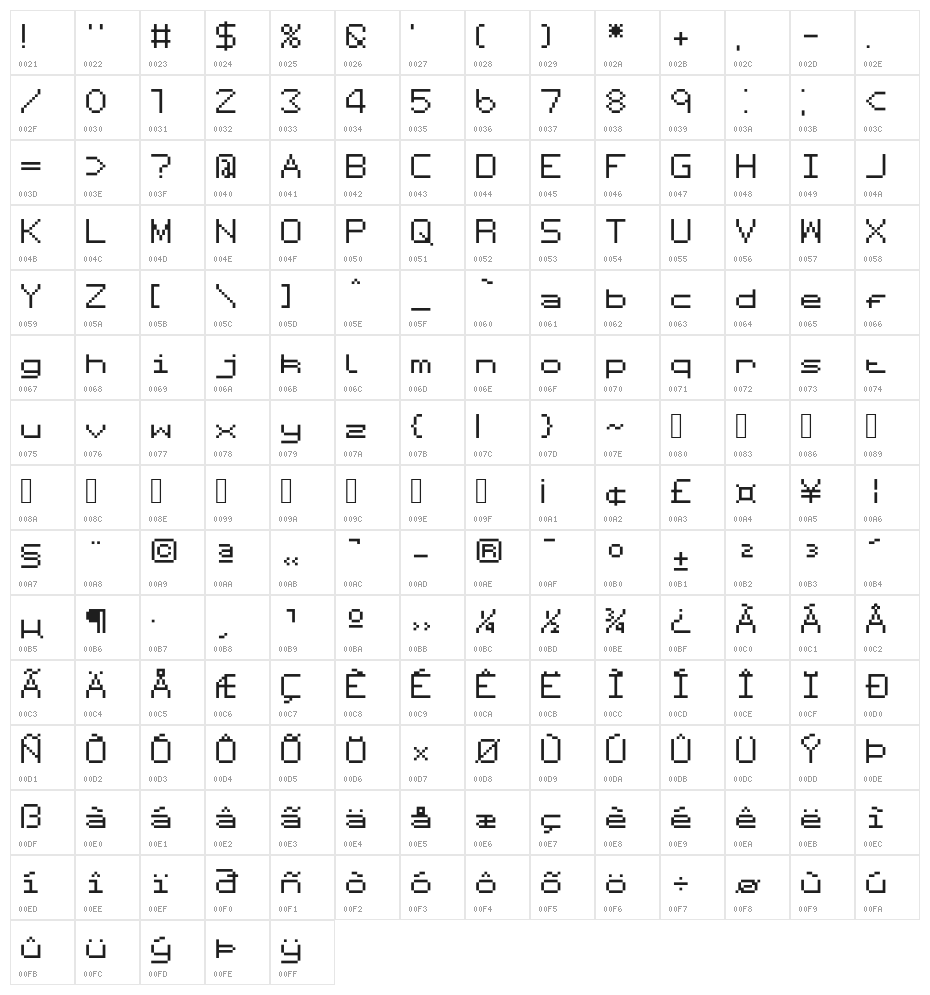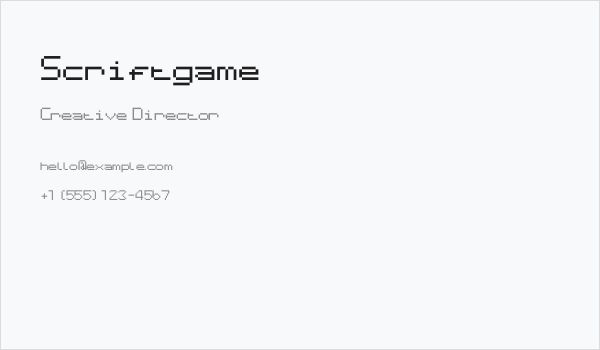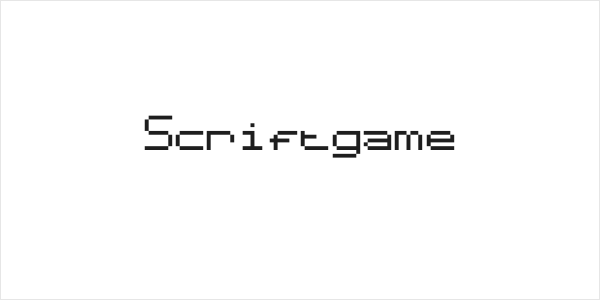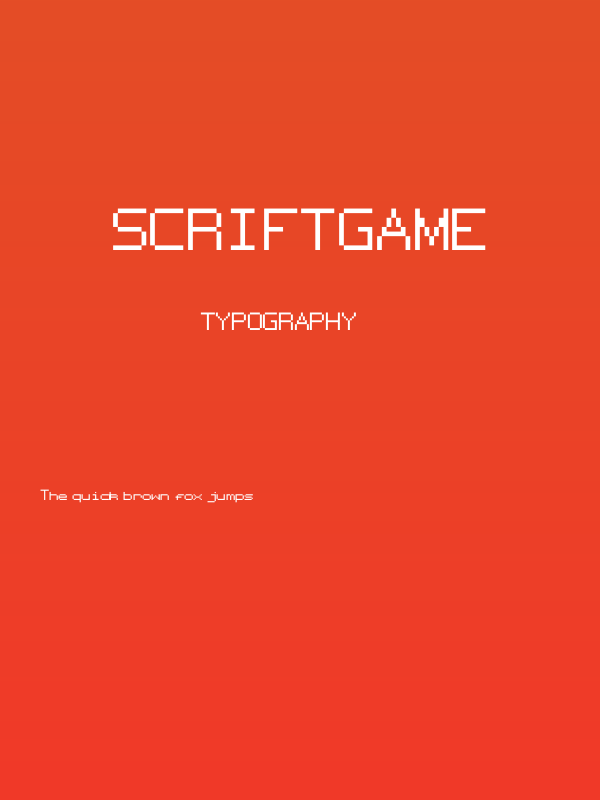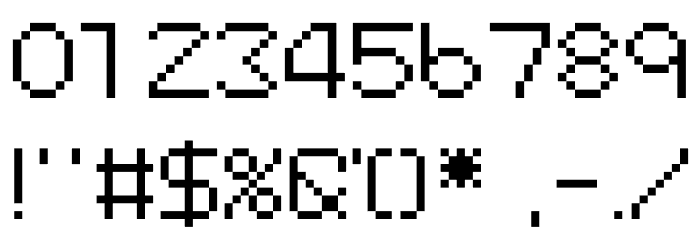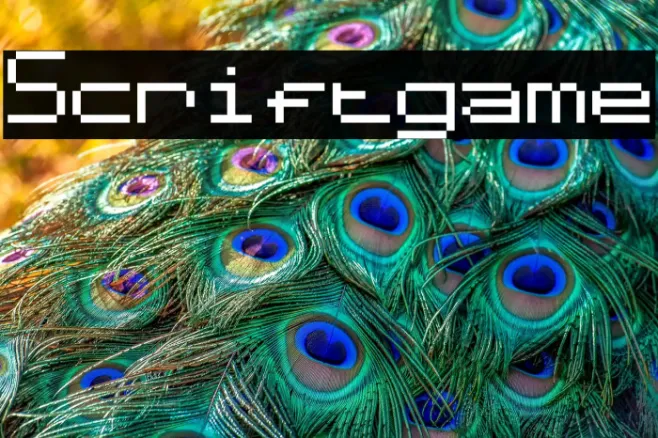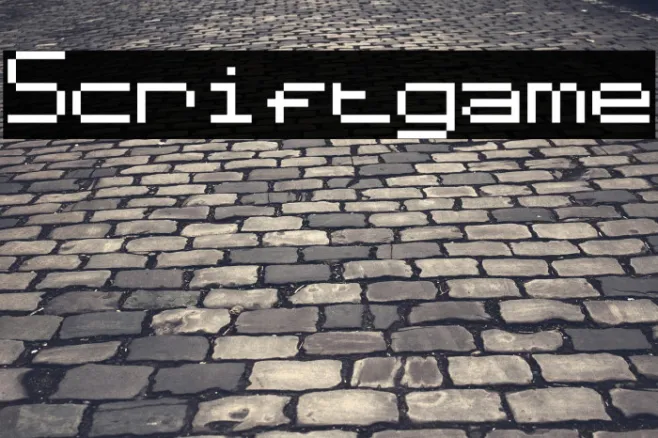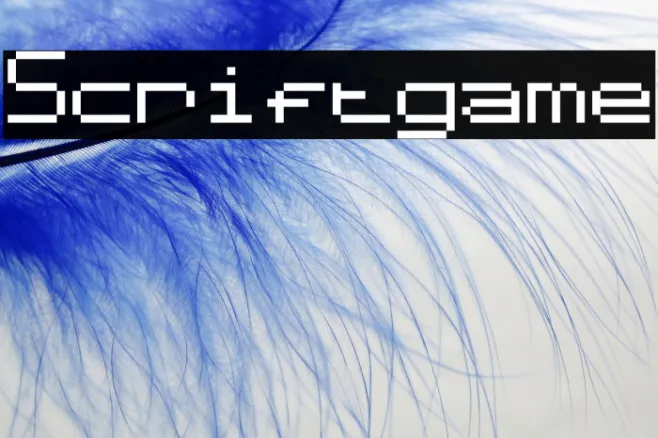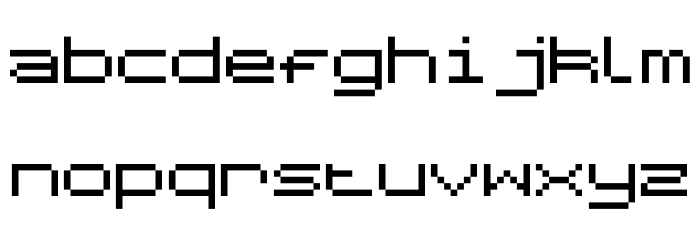
Scriftgame Font
Scriftgame Description
This font features a pixelated, blocky design reminiscent of early digital displays and classic video game aesthetics. Each character is composed of a grid-like pattern, giving it a distinctly retro and digital feel. The uppercase and lowercase letters maintain a consistent height, contributing to a uniform appearance. Numbers and special characters follow the same pixelated style, ensuring visual coherence across all elements. The font's simplicity and geometric structure make it highly legible, even at smaller sizes, while its nostalgic charm adds a playful touch to any design.
| Use Case | Headlines, Logos, Digital Art |
| Proposed Projects | Ideal for video game design, retro-themed graphics, digital art projects, and any creative work that seeks to evoke nostalgia for early computing and gaming eras. |